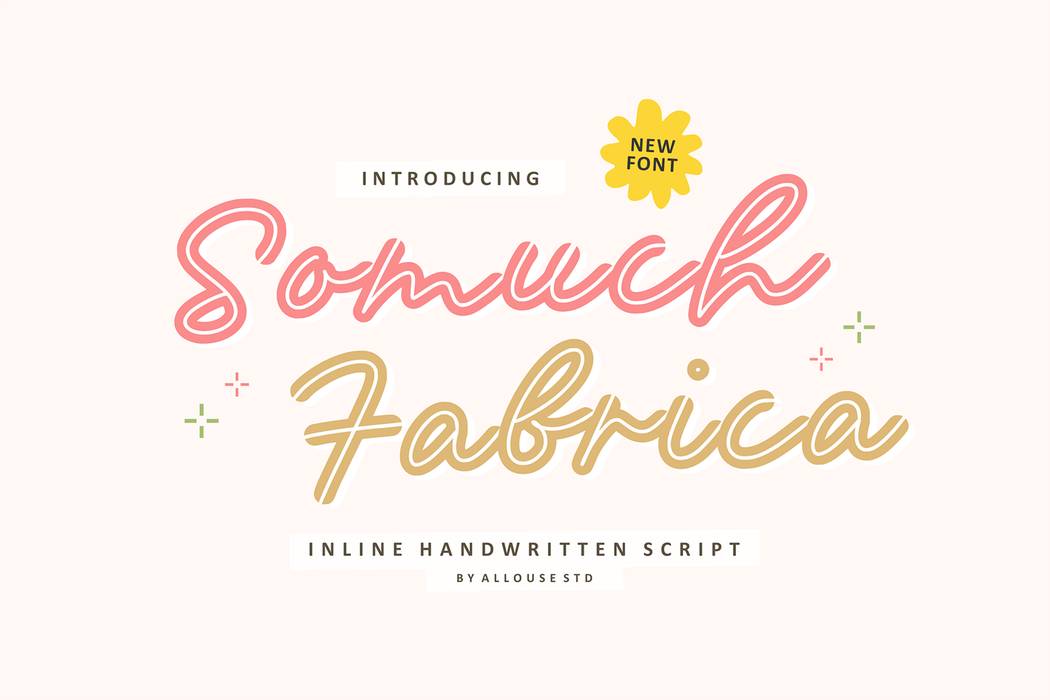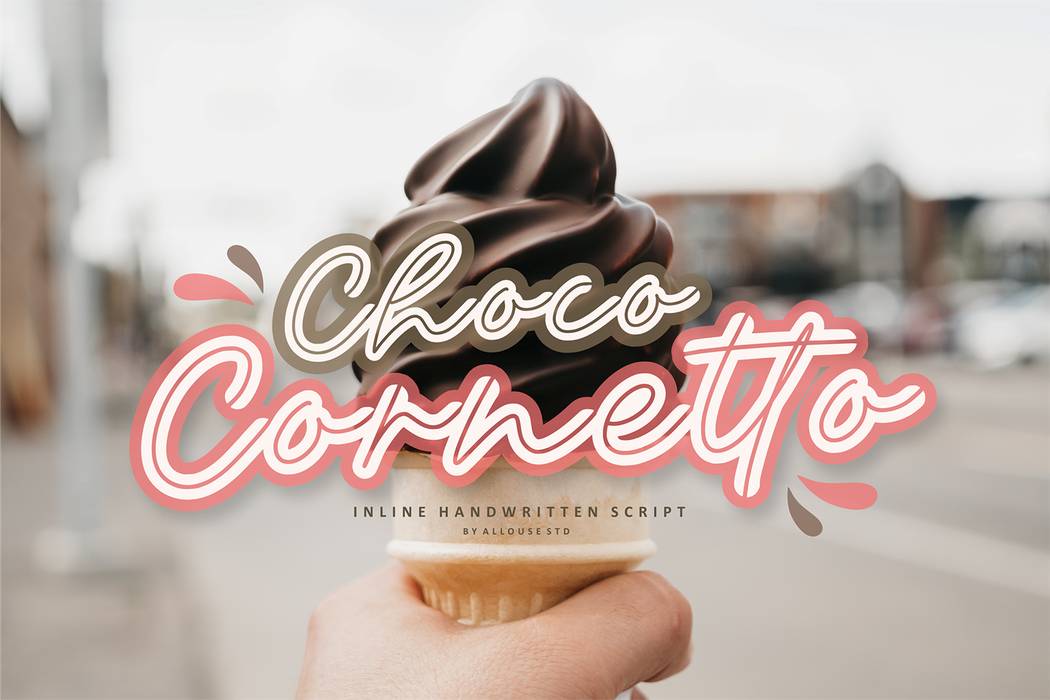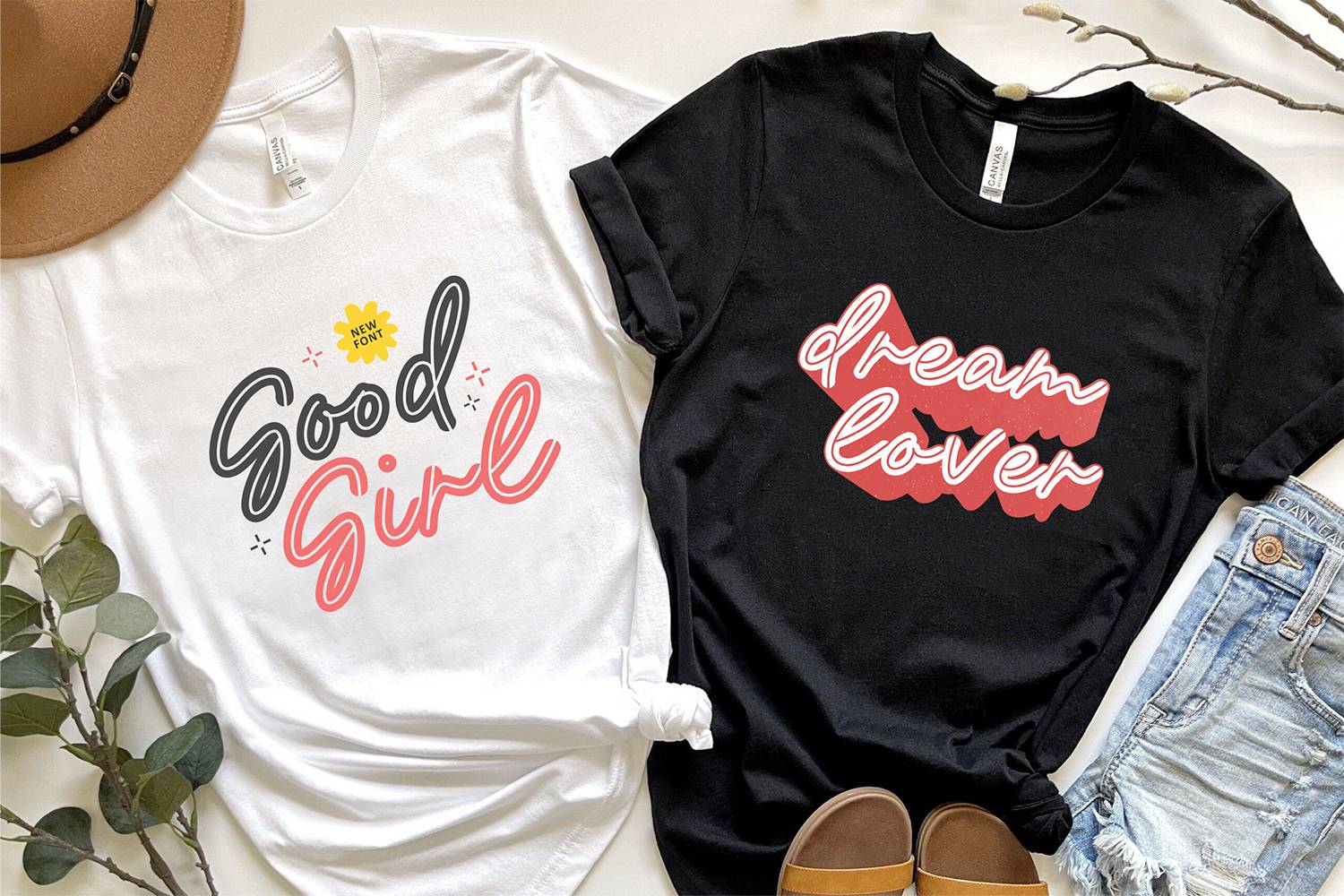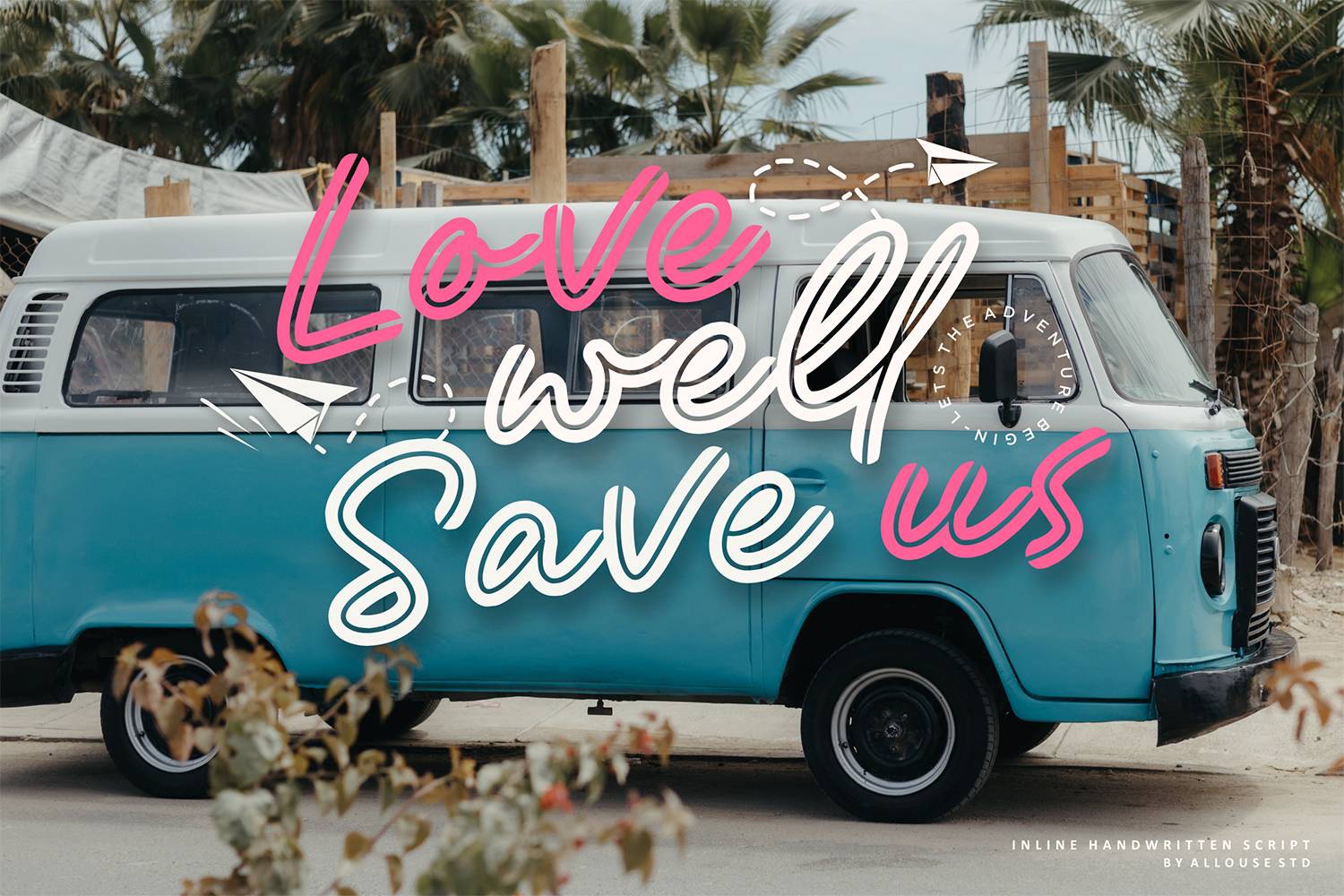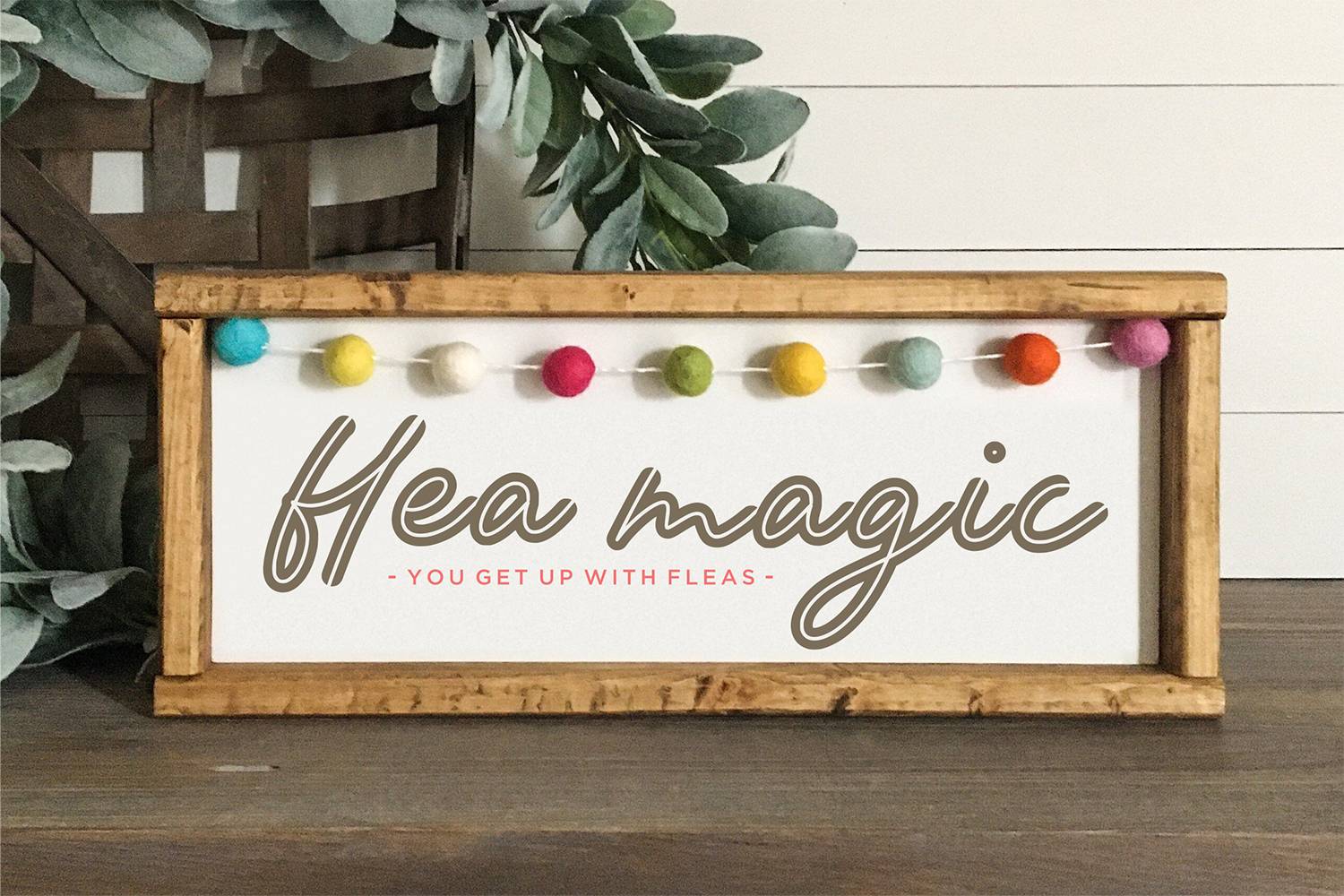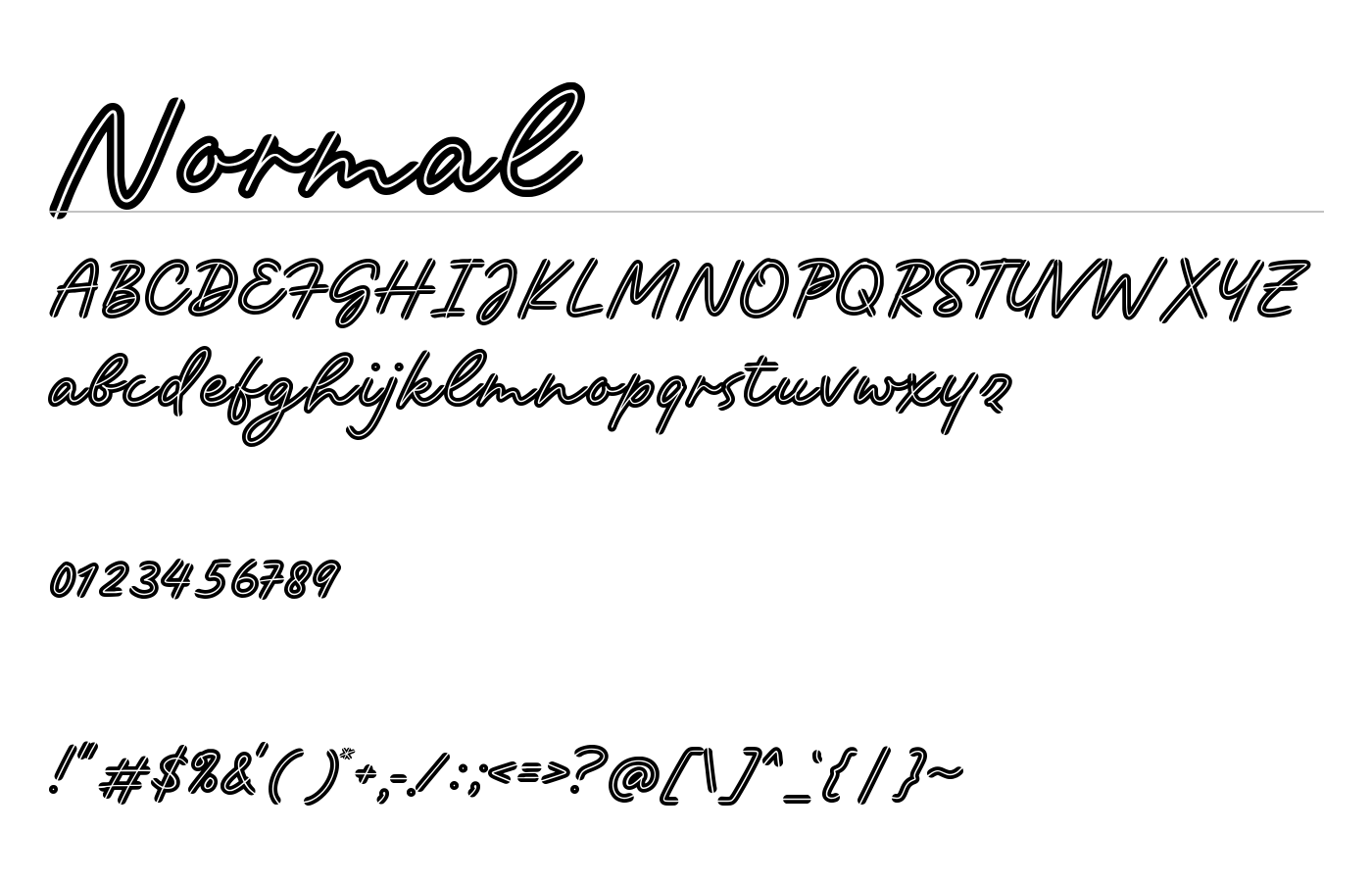
Somuch Fabrica is a lively script font with a casual, hand-drawn feel characterized by its smooth, double-line strokes and slightly slanted letterforms. Its medium weight and airy spacing make it perfect for adding a friendly, energetic touch to logos, posters, or packaging where a playful yet stylish vibe is desired. This font shines in designs that want to convey approachability with a hint of creativity and charm.
Somuch Fabrica Font